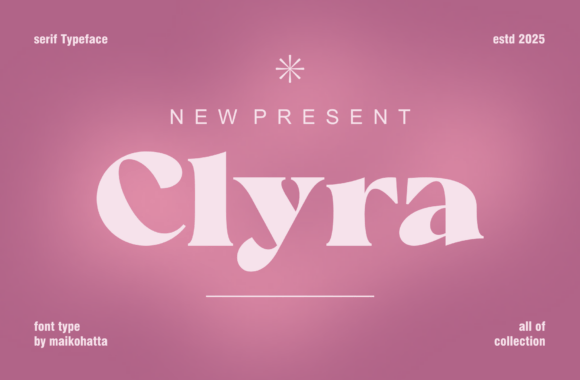
Clyra Font: Elevate Your Designs with Elegance and Sophistication
In the world of typography, a font can make or break a design. It has the power to evoke emotions, convey messages, and create a lasting impression. For designers, writers, and artists, finding the perfect typeface can be a daunting task. However, if you’re looking for a font that exudes elegance, sophistication, and refinement, look no further than Clyra. In this article, we’ll introduce you to Clyra, a beautiful serif typeface that’s perfect for editorial use, branding, wedding invitations, logo design, and luxury packaging.
Introducing Clyra: An Elegant Serif Typeface
Clyra is a stunning serif typeface designed to bring a touch of luxury to any design. With its graceful curves, high contrast strokes, and timeless proportions, Clyra is the perfect choice for designers who want to create something truly special. Whether you’re working on a magazine cover, a fashion label, or a wedding invitation, Clyra’s elegant design ensures that your project will stand out from the rest.
Key Characteristics of Clyra
- Elegant Curves: Clyra’s curves are smooth and refined, giving it a sophisticated look that’s perfect for high-end designs.
- High Contrast Strokes: The font’s high contrast strokes add a touch of drama and elegance, making it perfect for headlines, titles, and logos.
- Timeless Proportions: Clyra’s proportions are carefully crafted to ensure that it remains legible and beautiful, even at small sizes.
- Classic Serif Elements: Clyra blends classic serif elements with a modern flair, making it perfect for designers who want to create something truly unique.
Perfect for Editorial Use, Branding, and More
Clyra is a versatile typeface that can be used in a variety of design projects. Here are some of the perfect use cases for Clyra:
- Editorial Use: Clyra is perfect for magazine covers, articles, and editorials that require a touch of elegance and sophistication.
- Branding: The font’s classic serif elements and modern flair make it perfect for branding projects that require a unique and memorable identity.
- Wedding Invitations: Clyra’s elegant design makes it perfect for wedding invitations, save-the-date cards, and other wedding-related materials.
- Logo Design: The font’s high contrast strokes and elegant curves make it perfect for logo design, especially for luxury brands and high-end businesses.
- Luxury Packaging: Clyra’s sophisticated design makes it perfect for luxury packaging, including product labels, packaging materials, and more.
Tips for Using Clyra in Your Designs
To get the most out of Clyra, here are some typography tips to keep in mind:
- Use Clyra for Headlines and Titles: The font’s high contrast strokes and elegant curves make it perfect for headlines and titles.
- Pair Clyra with a Sans-Serif Font: Pairing Clyra with a sans-serif font can create a beautiful contrast and add visual interest to your design.
- Experiment with Font Sizes: Clyra’s timeless proportions ensure that it remains legible even at small sizes, so don’t be afraid to experiment with different font sizes.
- Pay Attention to Kerning: As with any font, pay attention to kerning to ensure that your text is evenly spaced and visually appealing.
Why Choose Clyra?
With so many fonts available, why choose Clyra? Here are just a few reasons why Clyra stands out from the rest:
- Unique Design: Clyra’s blend of classic serif elements and modern flair makes it a unique and memorable typeface.
- Elegant and Sophisticated: Clyra’s elegant curves, high contrast strokes, and timeless proportions make it perfect for designers who want to create something truly special.
- Versatile: Clyra can be used in a variety of design projects, from editorial use to branding, wedding invitations, logo design, and luxury packaging.
- Readability: Clyra’s careful attention to detail ensures that it remains legible even at small sizes, making it perfect for body text and captions.
In conclusion, Clyra is a stunning serif typeface that’s perfect for designers who want to add a touch of elegance and sophistication to their designs. With its unique blend of classic serif elements and modern flair, Clyra is versatile, readable, and beautiful. Whether you’re working on a magazine cover, a fashion label, or a wedding invitation, Clyra is the perfect choice. So why wait? Download Clyra today and elevate your designs to the next level.